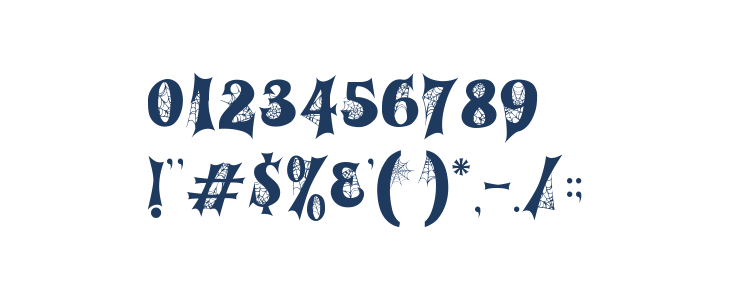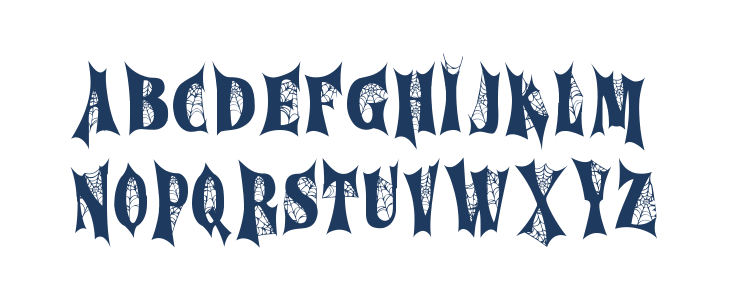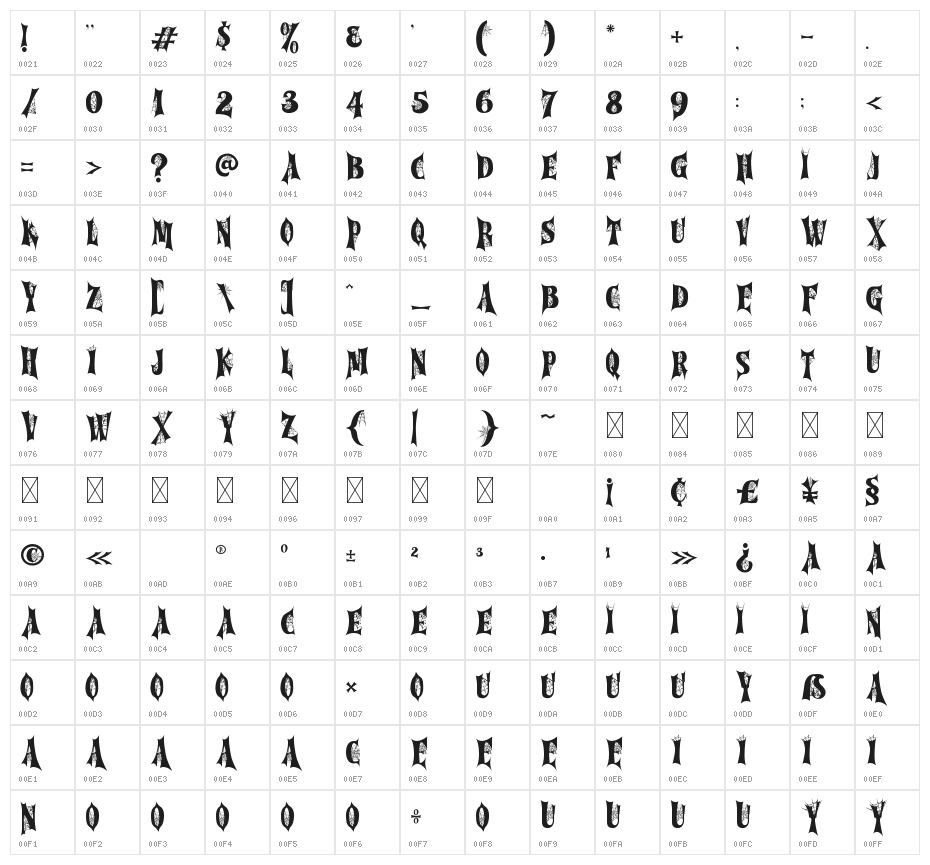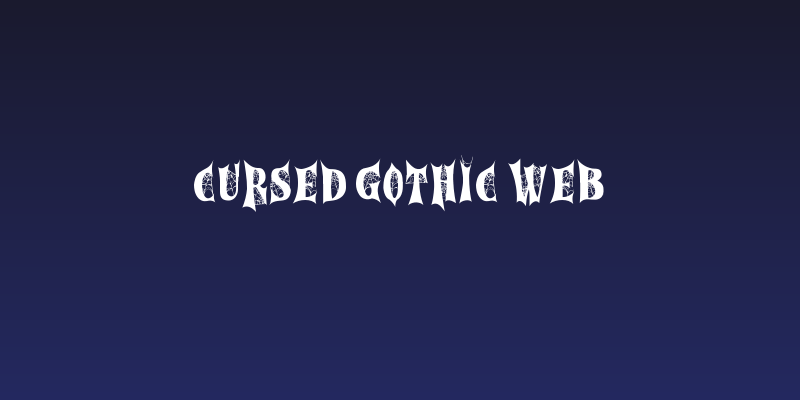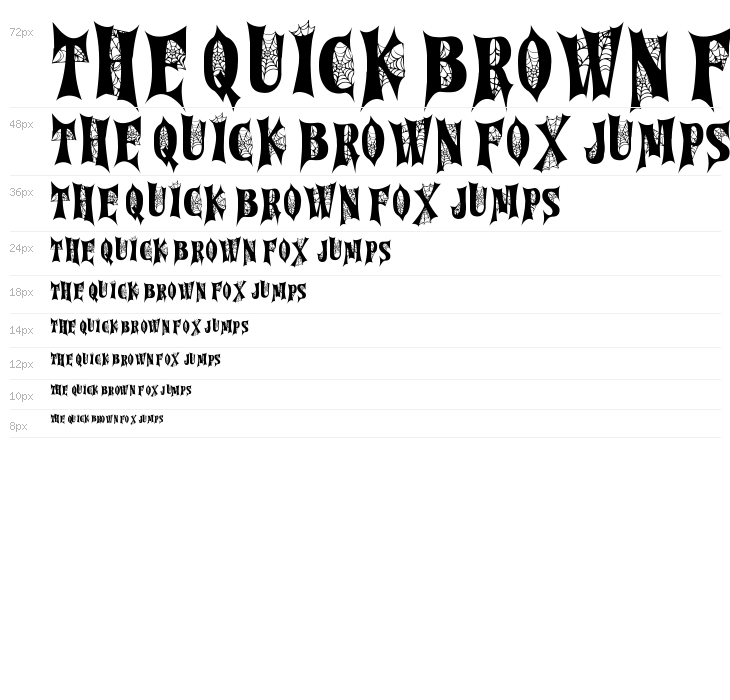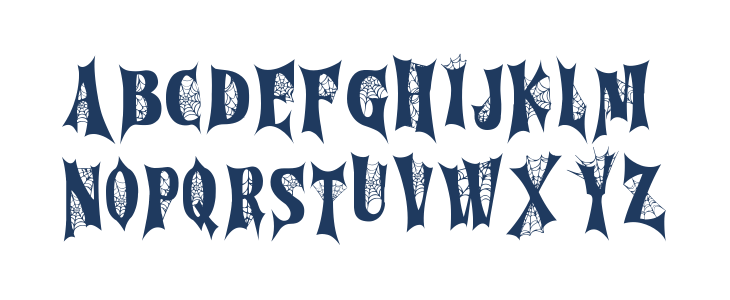
Cursed Gothic Web Font
| Gesamtstil | Decorative, Gothic, Spooky |
| Anwendungsfall | Headlines, Posters, Logos, Themed Graphics |
| Vorgeschlagene Projekte | Halloween event posters, haunted house signage, horror movie titles, themed party invitations, spooky branding. |